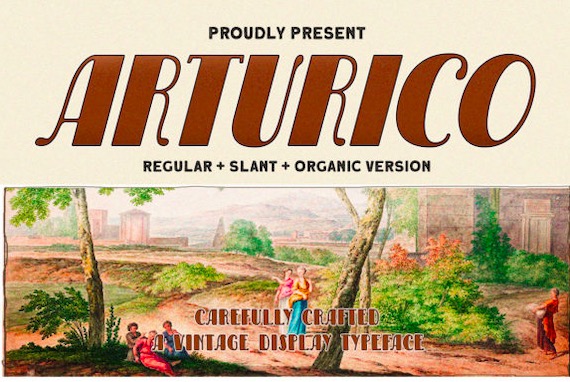
Arturico is an elegant retro display font that has high contrast. It was created and shared by Letterhend Studio along with a classy and vintage look, for this font is inspired by the 60s and 70s. This font is ideal for various formal forms such as invitations, labels, logos, magazine covers, books, greeting/wedding cards, packaging, fashion, make-up, stationery, novels, labels, or any type of advertising purpose.
Arturico Display Font